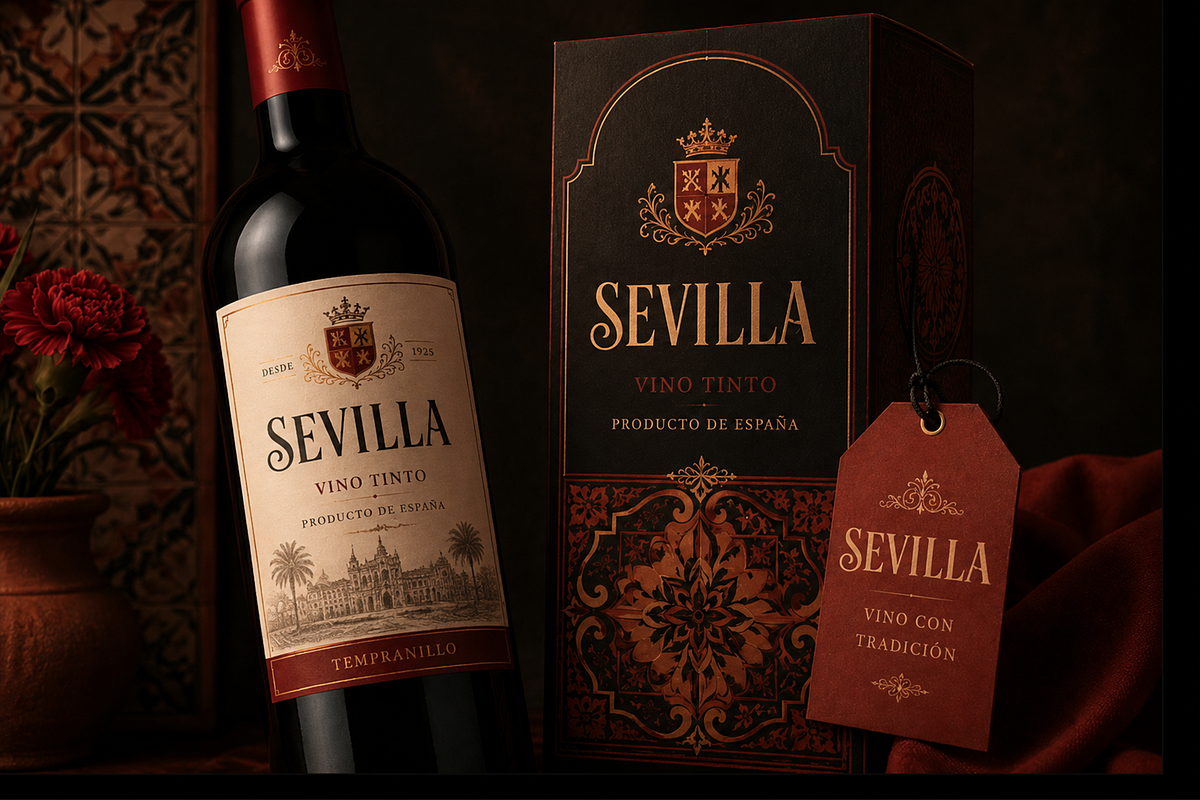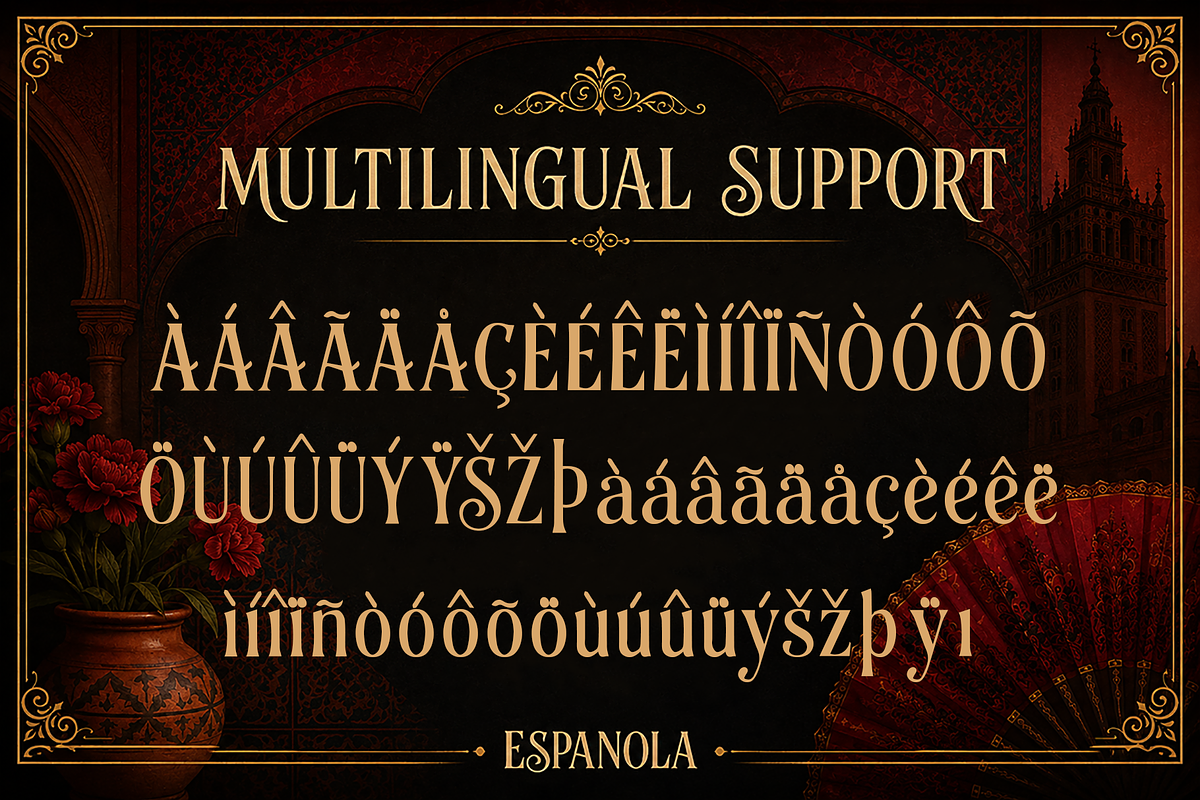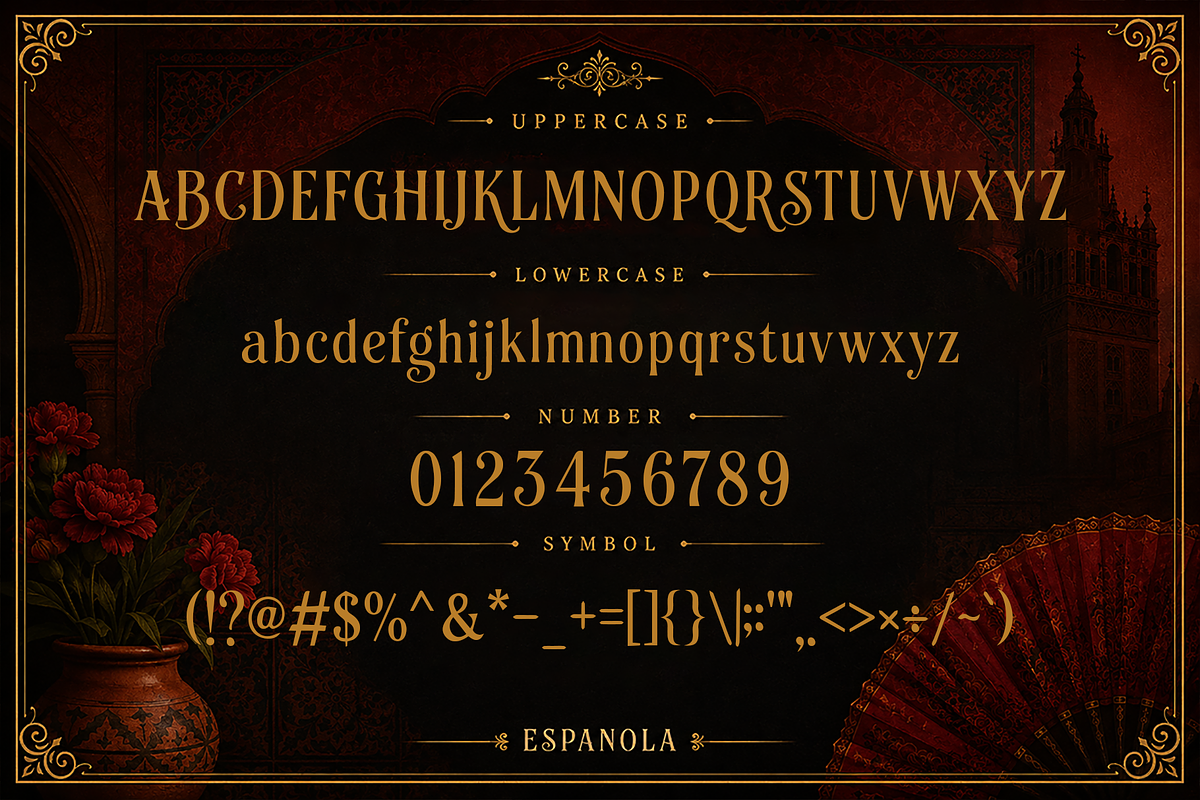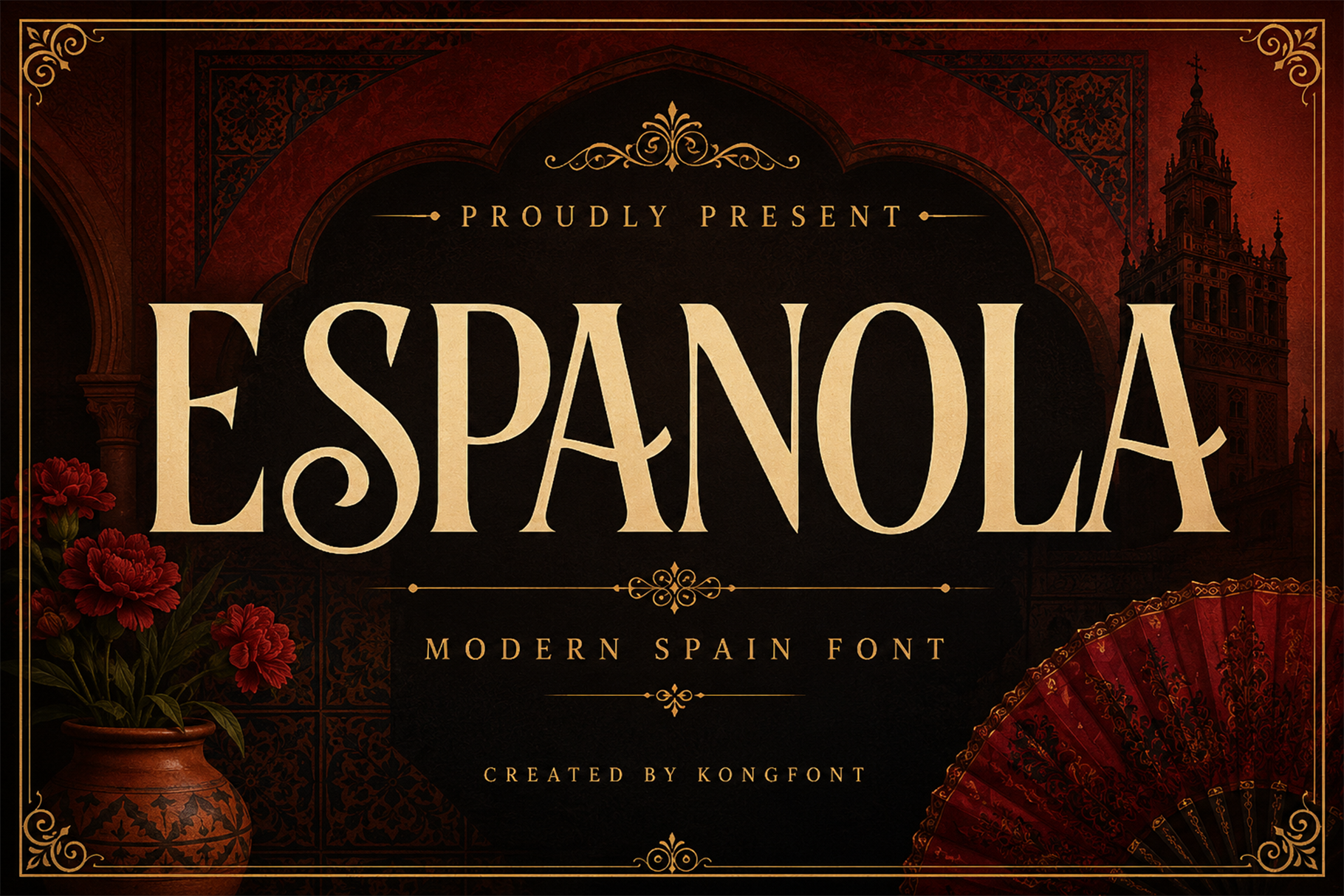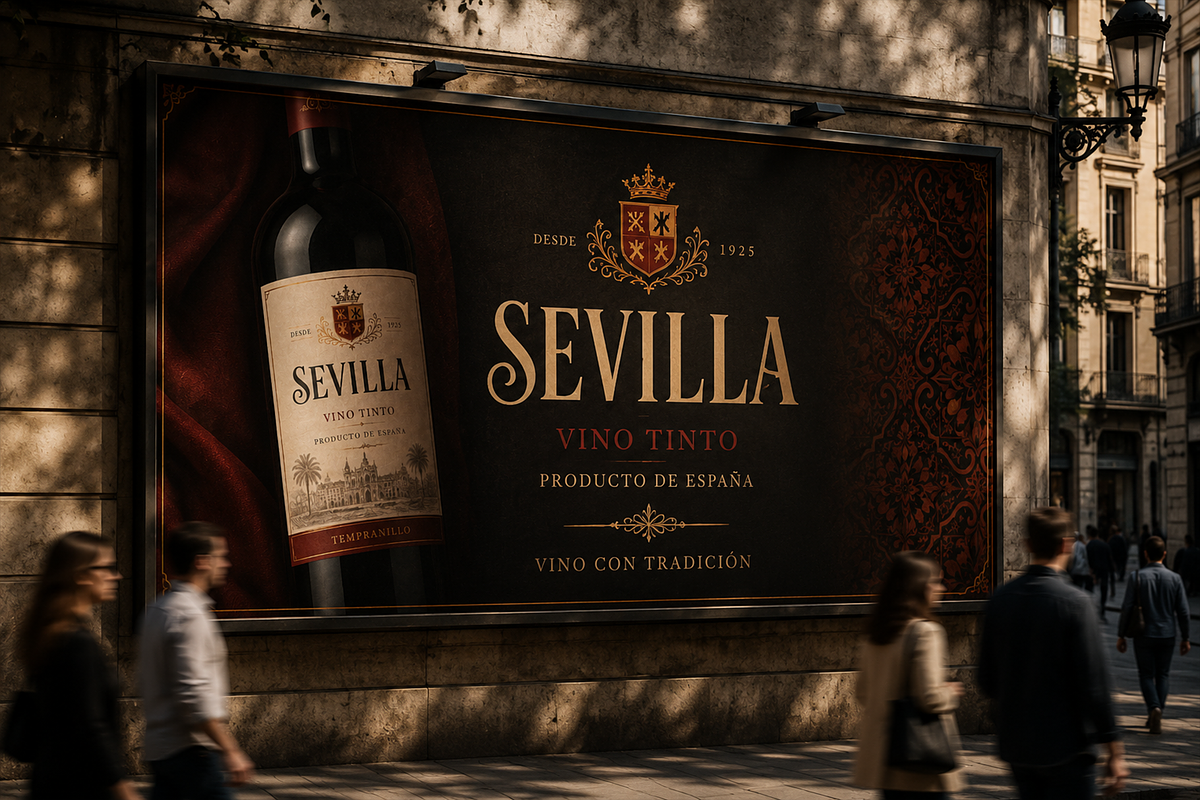
Espanola - Elegant Serif Font
Espanola - Elegant Spanish Display Serif Font
Meet "Espanola," an elegant Spanish-inspired display serif font created with graceful curves, dramatic proportions, and refined decorative details. Influenced by classic European typography, Mediterranean architecture, and traditional Spanish visual culture, Espanola delivers a sophisticated character that feels both timeless and distinctive.
Its tall letterforms, elegant terminals, and expressive shapes make Espanola especially effective for headlines, logos, titles, packaging, posters, editorial layouts, and premium branding. The font combines classical beauty with a modern display approach, allowing it to stand out while maintaining a luxurious and artistic appearance.